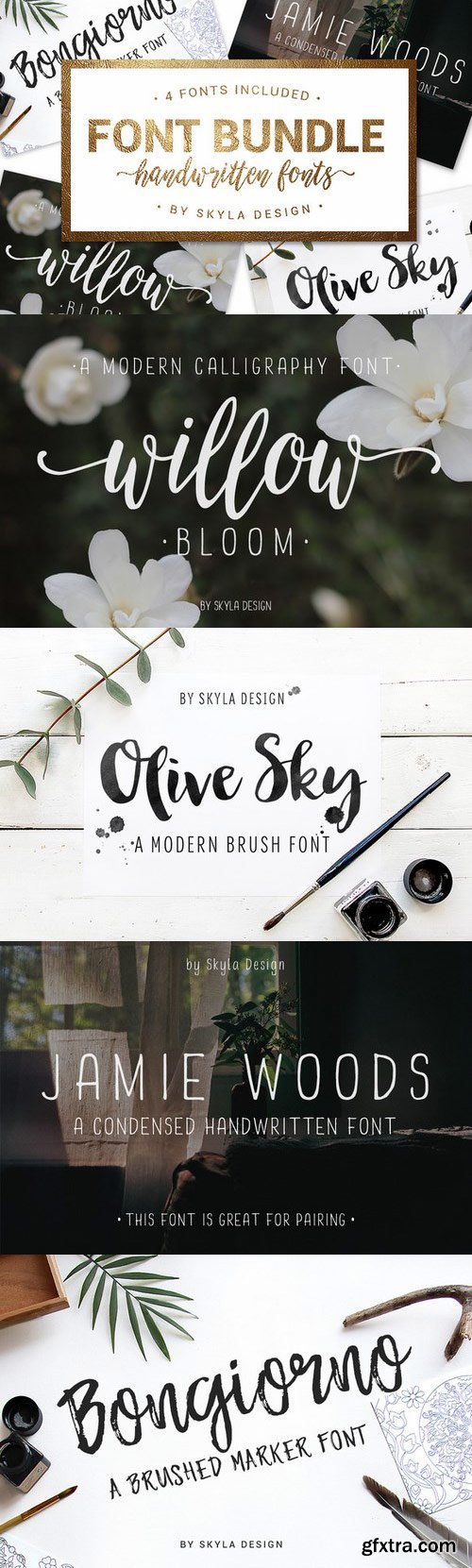
CM - Font Bundle - 4 handwritten fonts 712038
A gorgeous handwritten Font Bundle of some of my most popular fonts. Use these fonts for logo's, invites, prints and any other awesome projects you are working on!